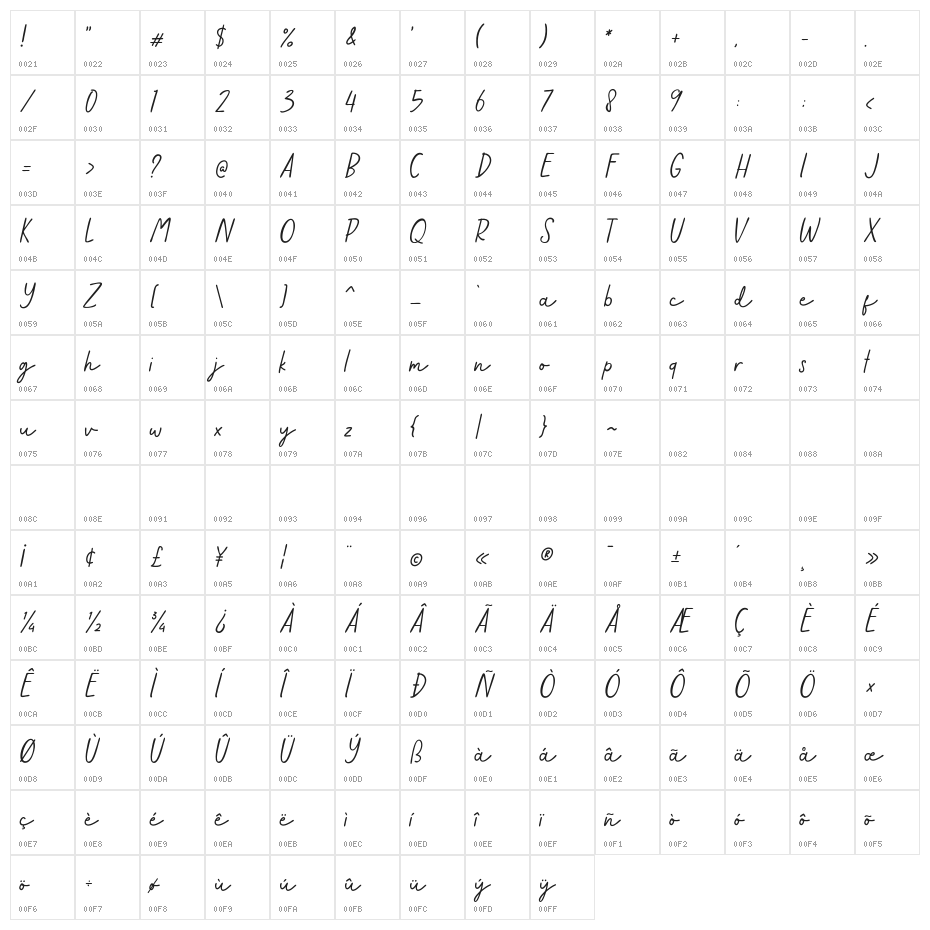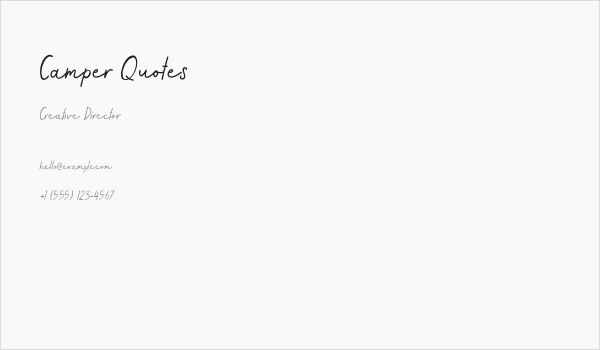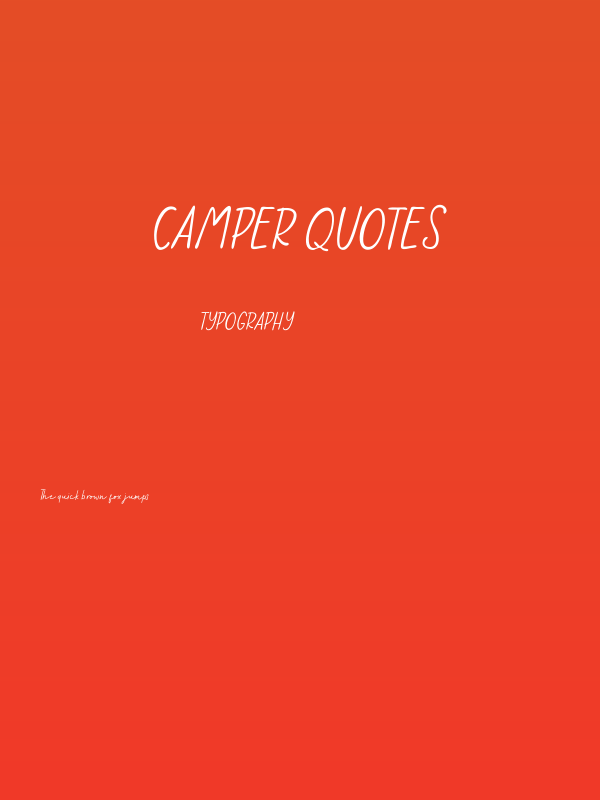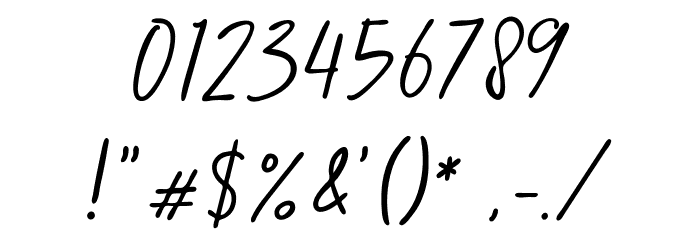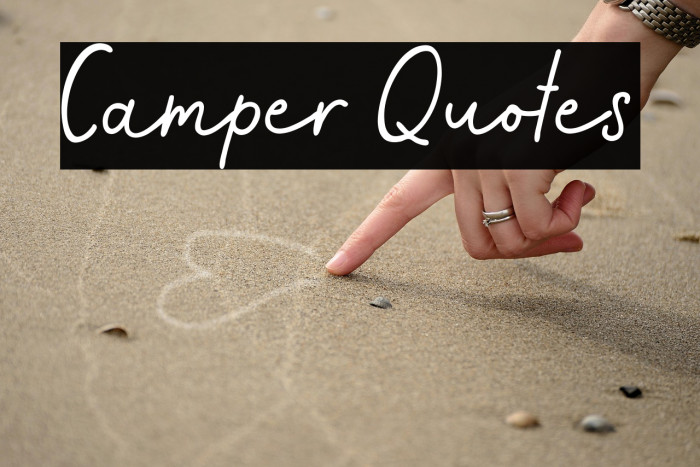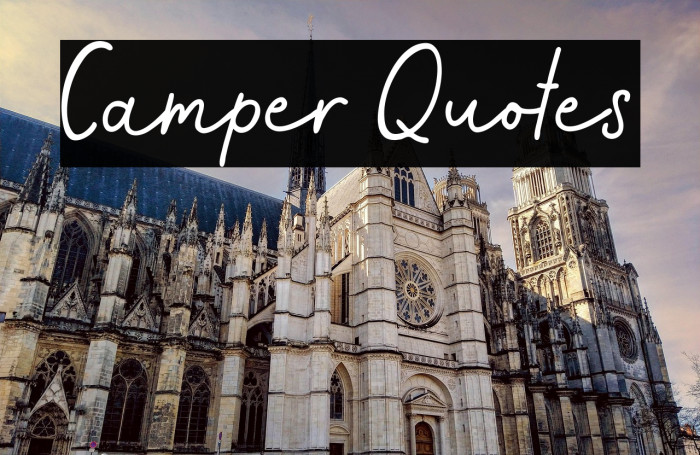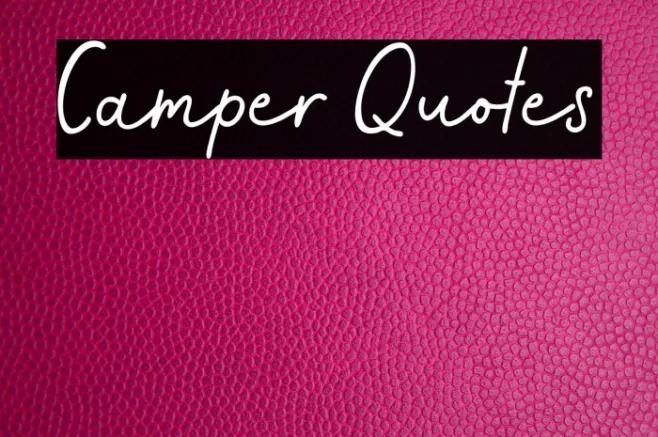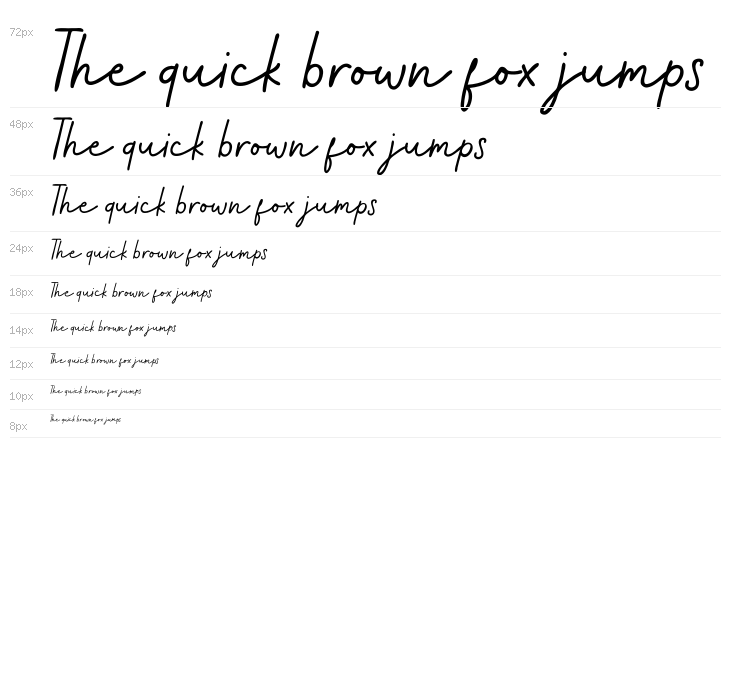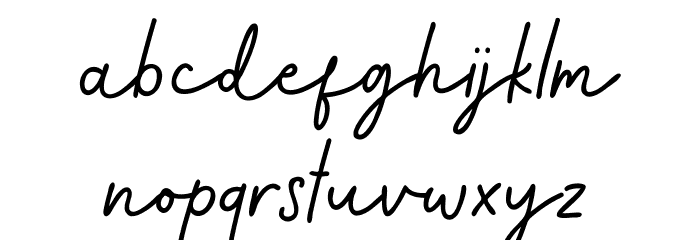
Camper Quotes Font
Camper Quotes Description
This font exudes a casual and friendly vibe, characterized by its handwritten style that mimics natural penmanship. The letters are slightly slanted, adding a dynamic flow to the text. Each character is distinct, with a playful yet legible appearance, making it ideal for informal settings. The uppercase letters are tall and narrow, while the lowercase letters maintain a consistent baseline with gentle curves. The numbers are clear and easy to read, complementing the overall aesthetic. Special characters are thoughtfully designed to match the font's whimsical style.
| Use Case | Headlines, Informal text, Social media |
| Proposed Projects | Perfect for greeting cards, personal notes, social media graphics, and informal branding. |